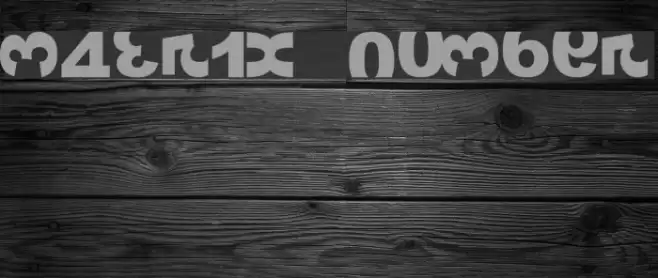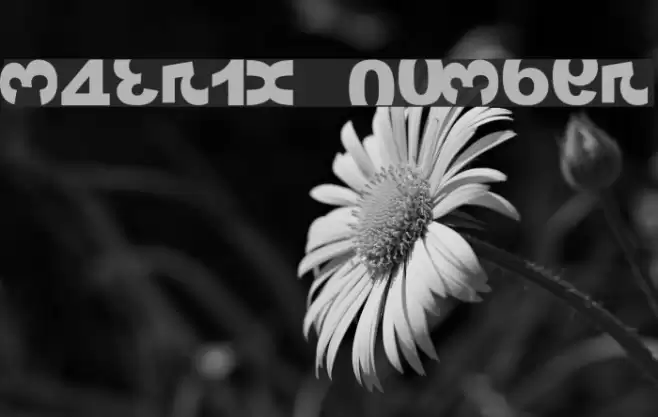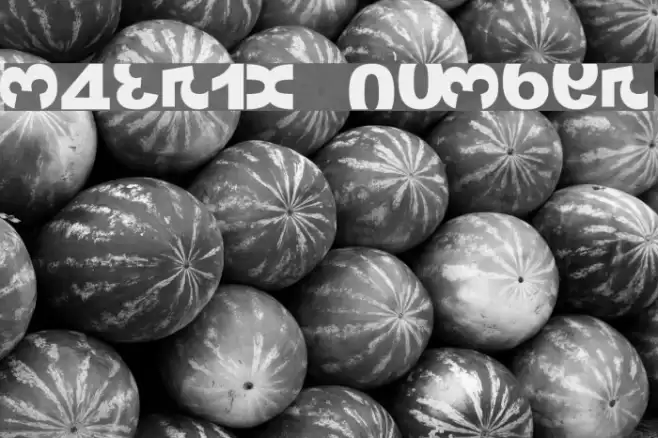
Matrix Number Font
Matrix Number Description
This font features a bold and futuristic design with a distinct geometric style. The characters are crafted with thick strokes and rounded edges, giving them a unique and modern appearance. The uppercase and lowercase letters maintain a consistent visual weight, creating a harmonious look across the alphabet. The numbers and special characters follow the same design principles, ensuring uniformity throughout. This font's boldness and distinctive style make it stand out, making it ideal for creative and eye-catching designs.
A bold, futuristic font with geometric and rounded characters from Uncategorized fonts.
- Proposed Projects: Ideal for sci-fi themed projects, modern branding, posters, and digital artwork.
- Overall Style: Futuristic